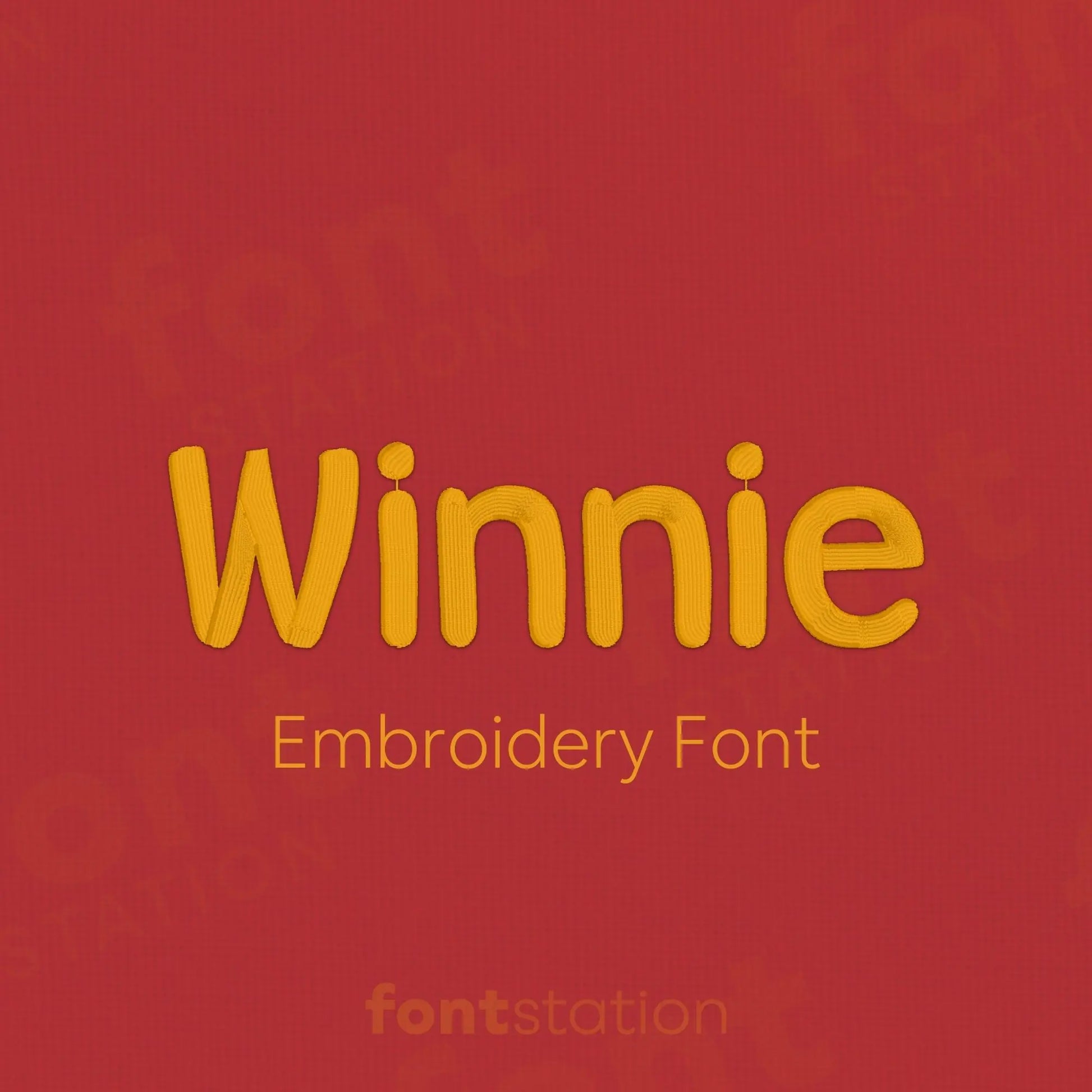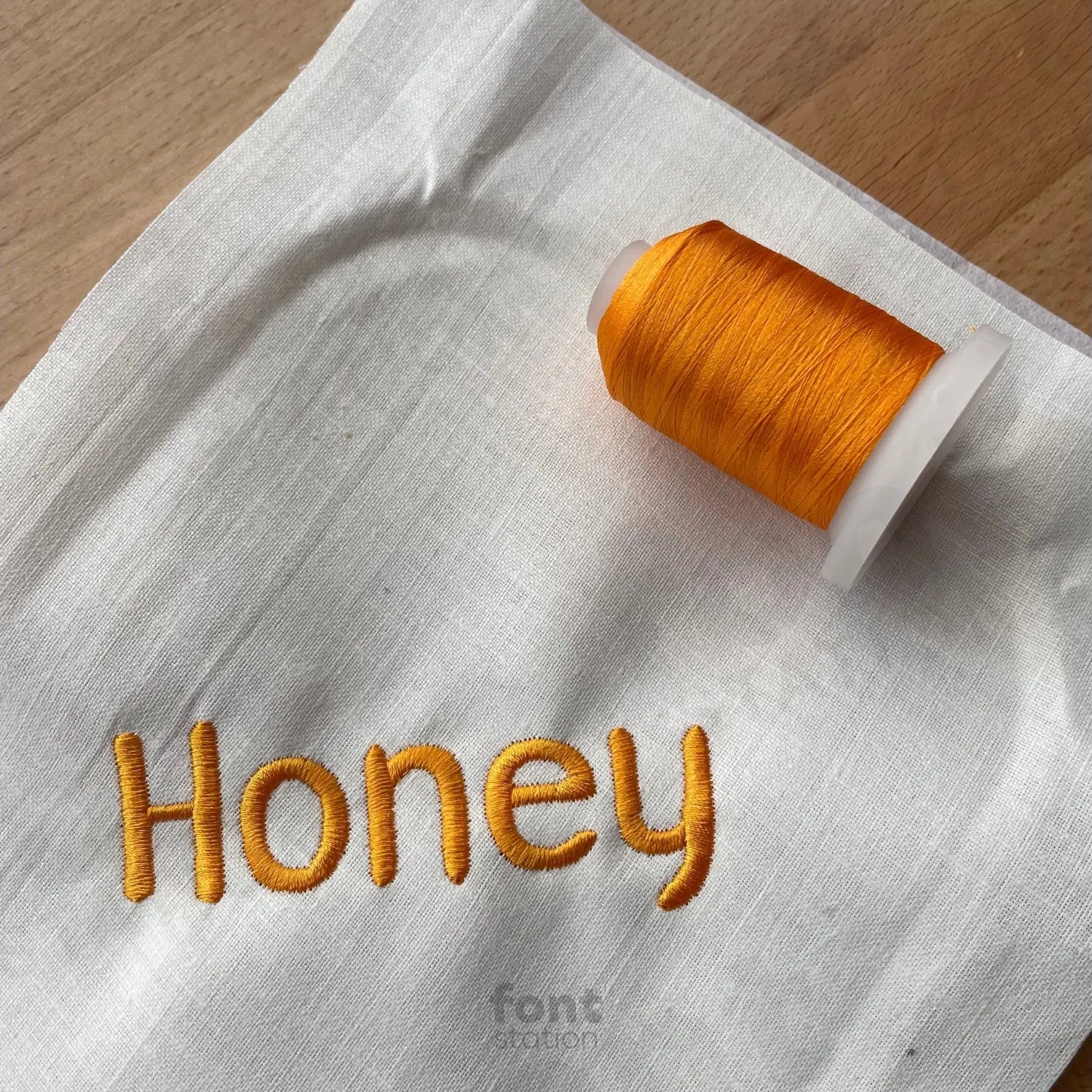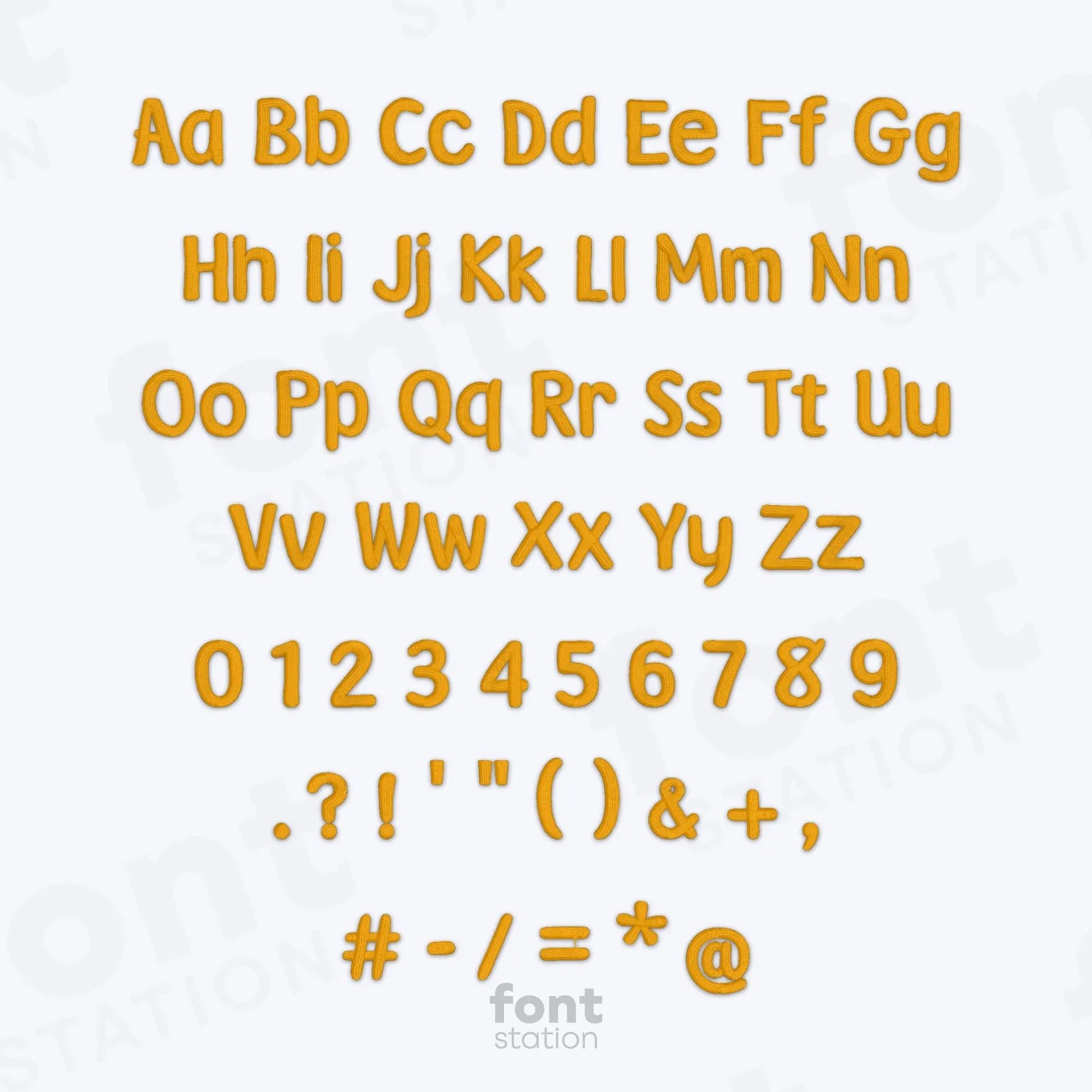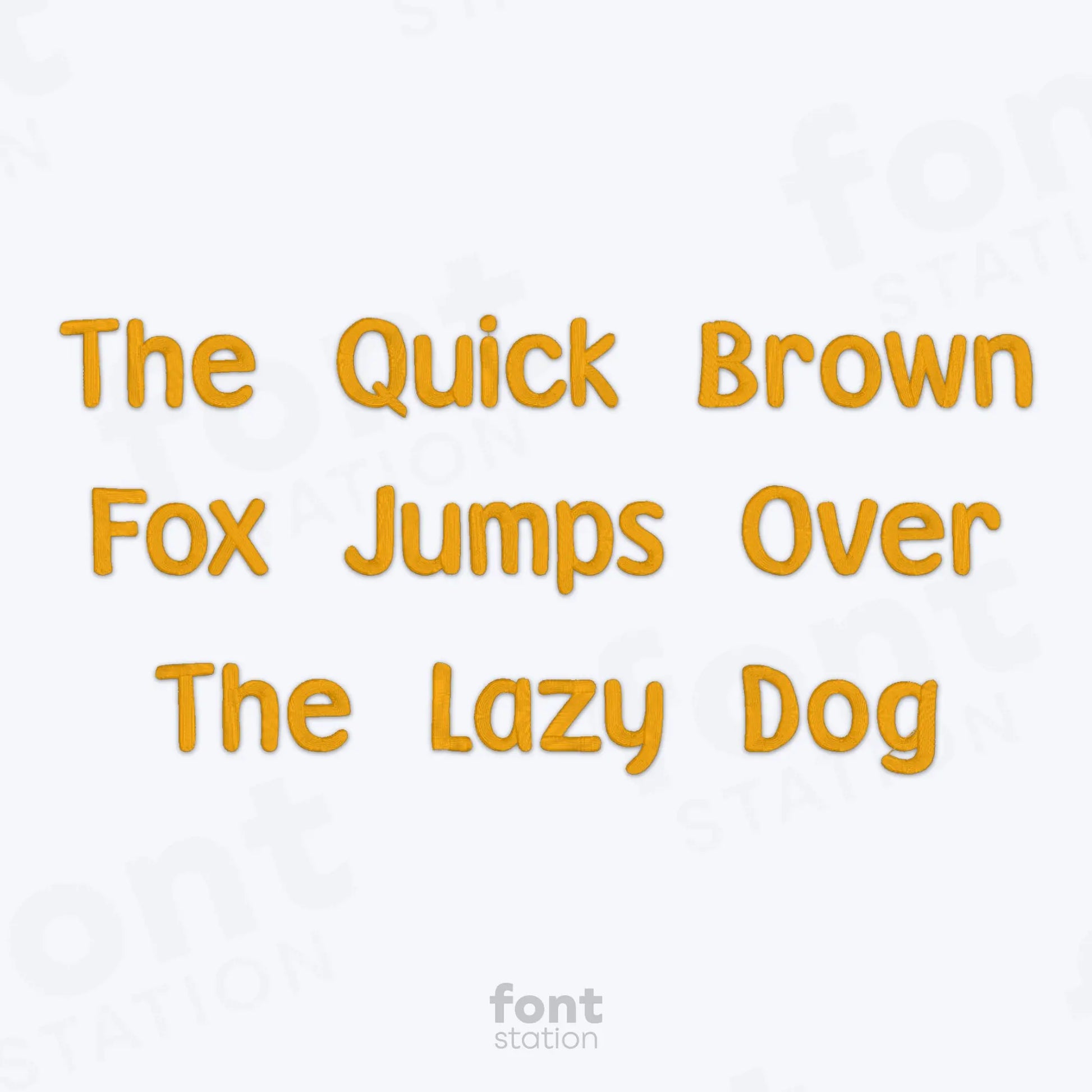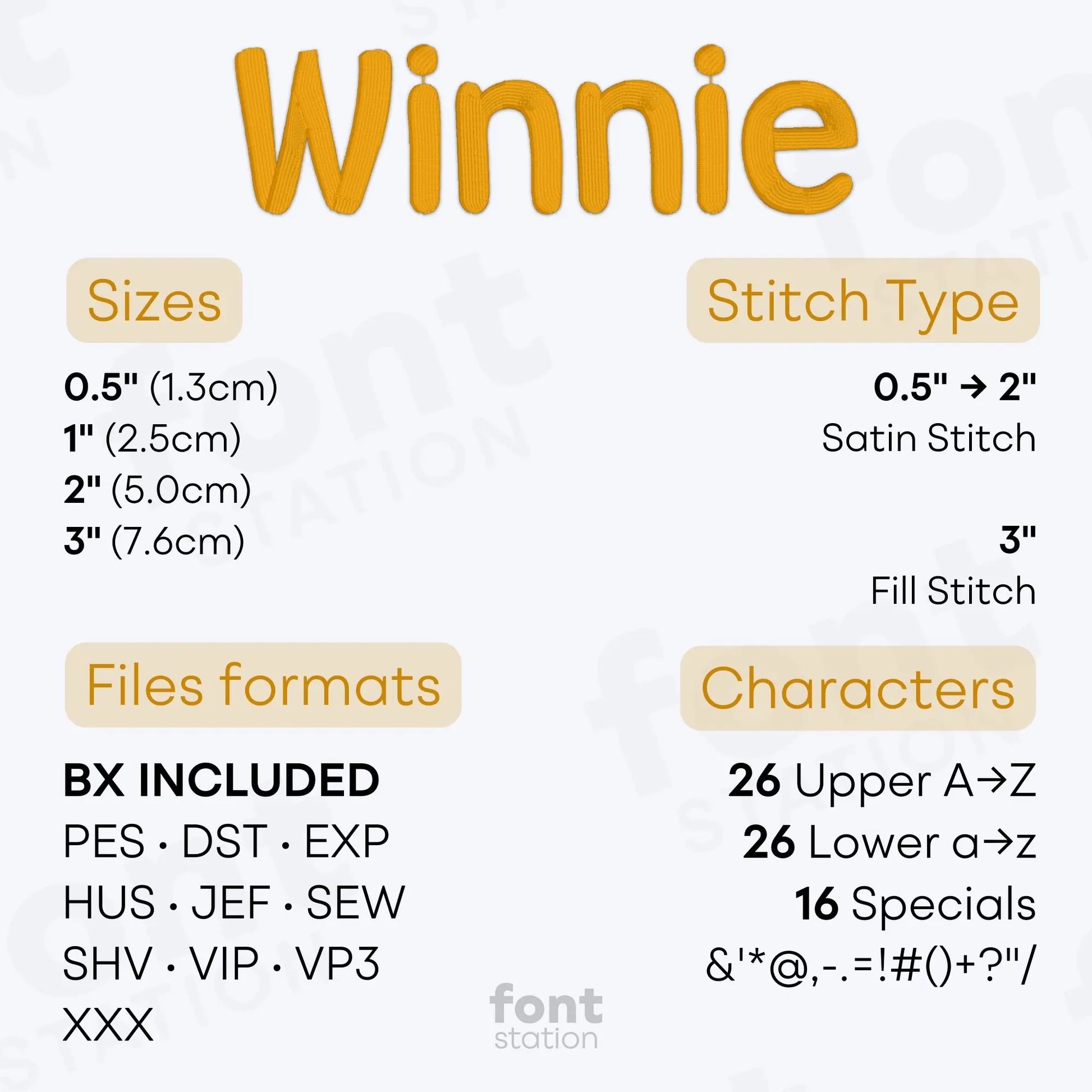
Winnie Embroidery Font
Introducing our Winnie embroidery font, a playful, cartoon-style alphabet with rounded letters that stitch smoothly on your embroidery machine. Perfect for kids' names and cheerful designs, it brings a fun touch to every project.
Satin Stitch: 0.5", 1", and 2"
Fill Stitch: 3"
Characters: 26 uppercase, 26 lowercase, and symbols & ' * @ , - . = ! # ( ) + ? " /
Our Winnie embroidery font adds a cute, cartoon-style look to your kids' embroidery projects.
This playful machine embroidery font features a soft, rounded alphabet inspired by classic children's cartoons, perfect for kids' names, nursery decor, baby gifts, and any design that needs a sweet, whimsical touch. The Winnie embroidery letters are designed to stitch smoothly with clean, professional results on all embroidery machines, bringing a joyful, animated feel to your custom creations.